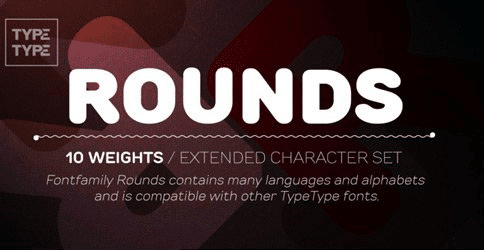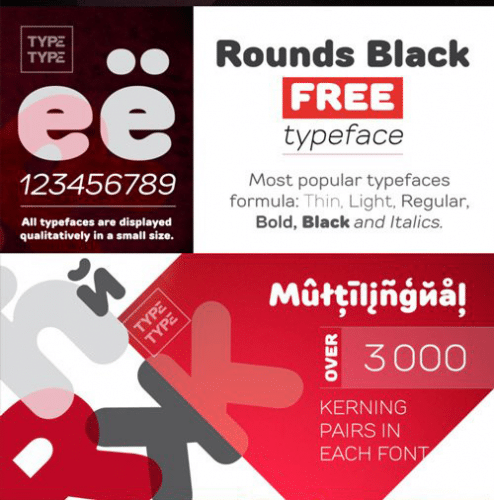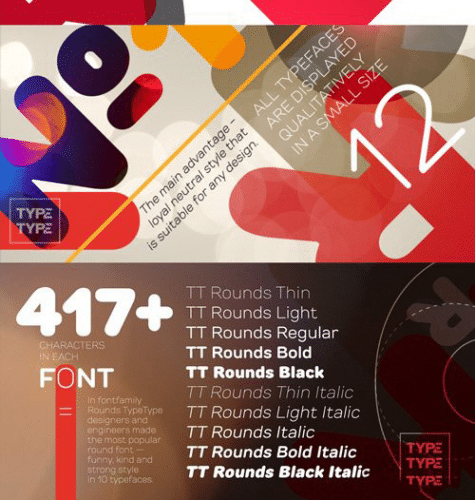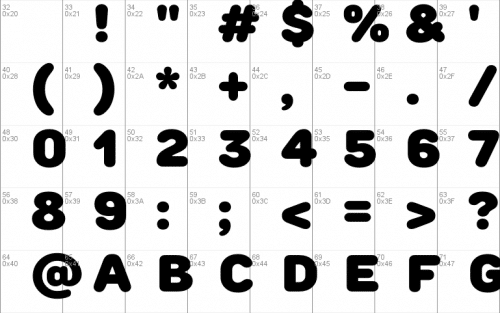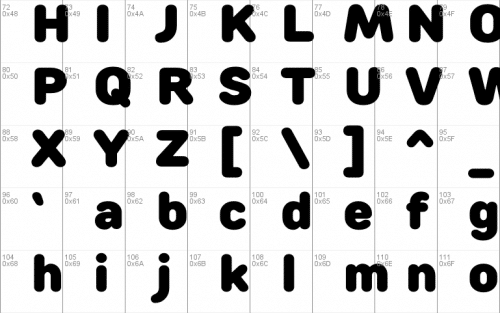
TT Rounds — font family with a very kind and gentle temperament. Most popular typefaces formula: Thin, Light, Regular, Bold, Black and Italics. Stylistic features of TT Rounds fonts — rounded elements.
All fonts are made so that they can be used as a short text (eg logos and headers), and in the long text sets (such as a paragraph of text or newspaper article).